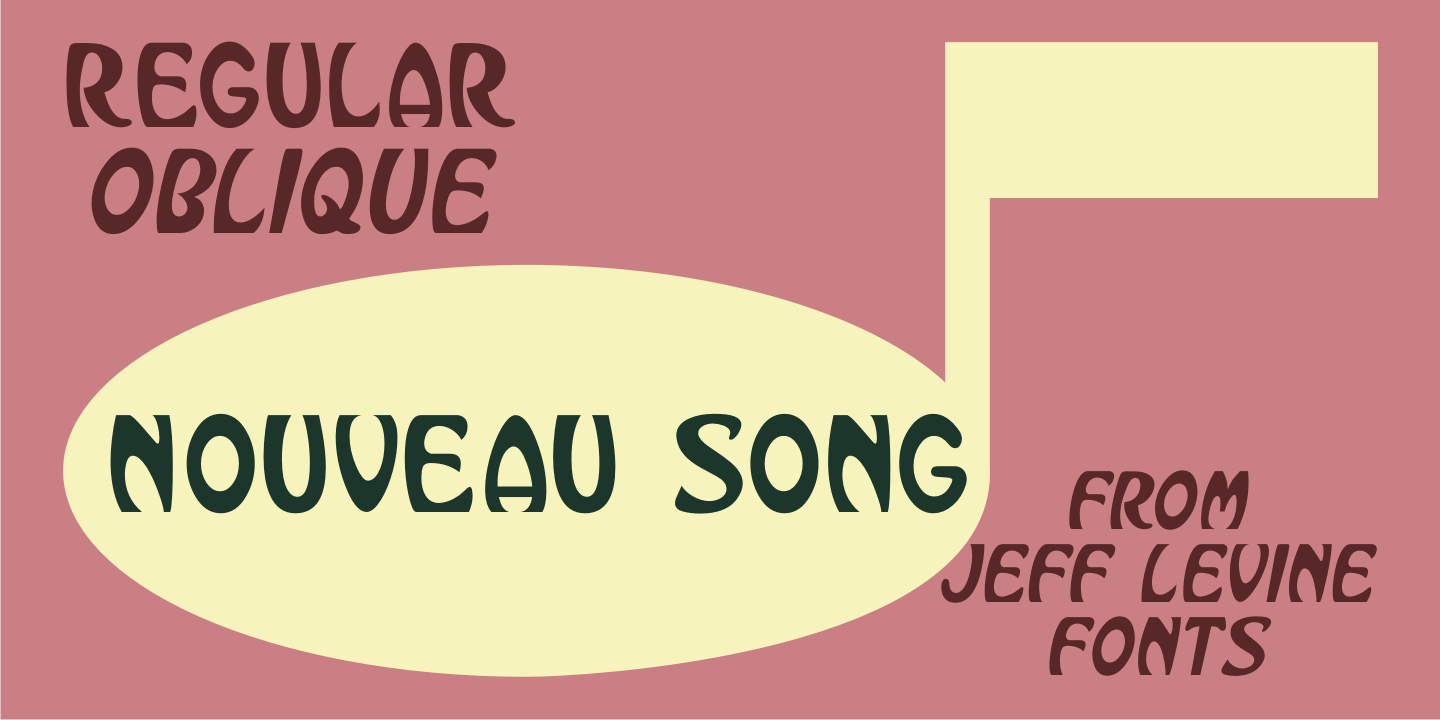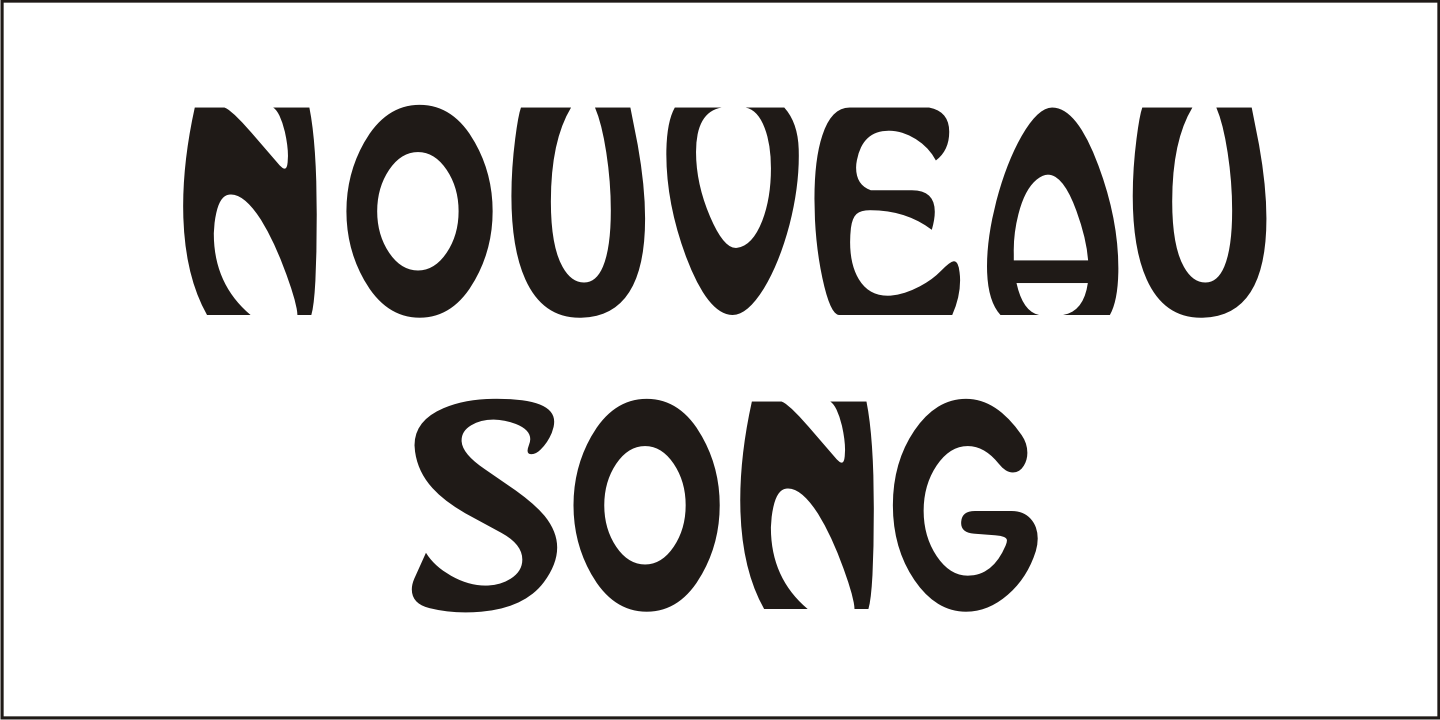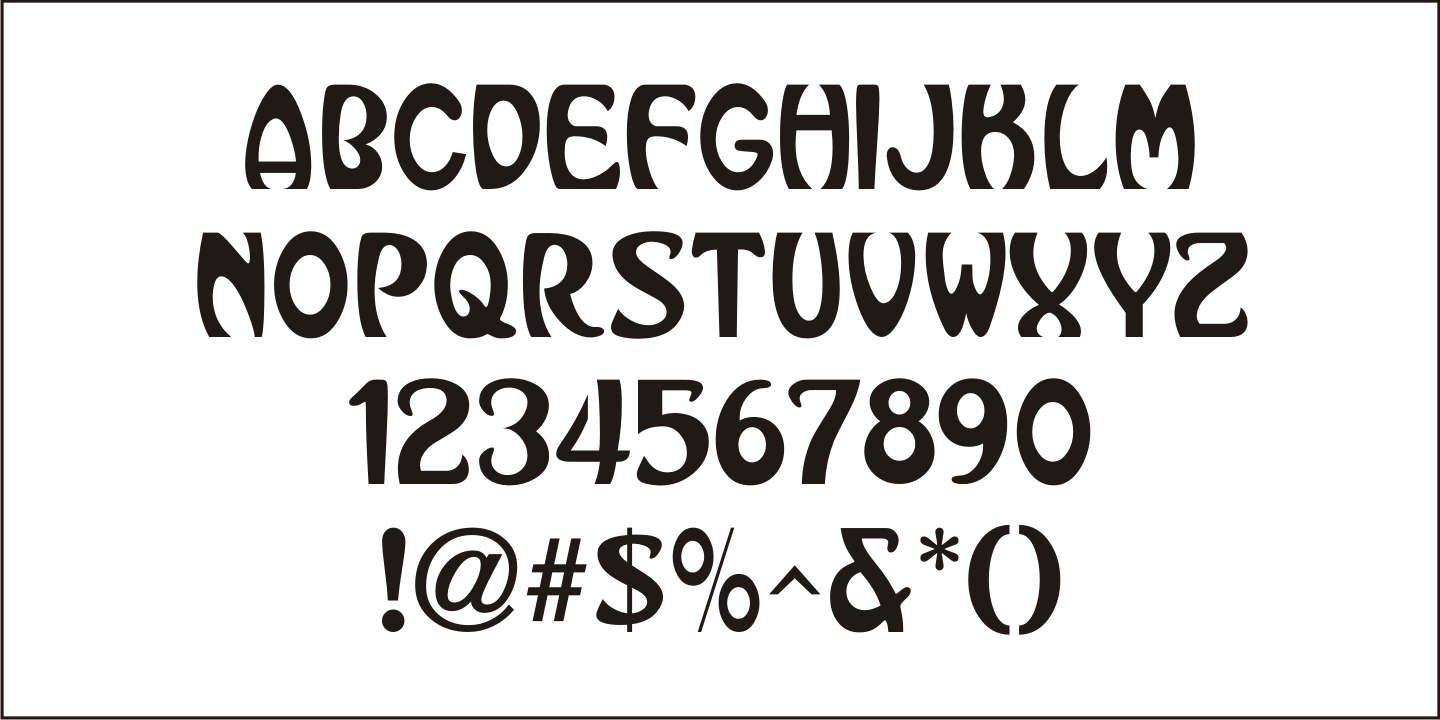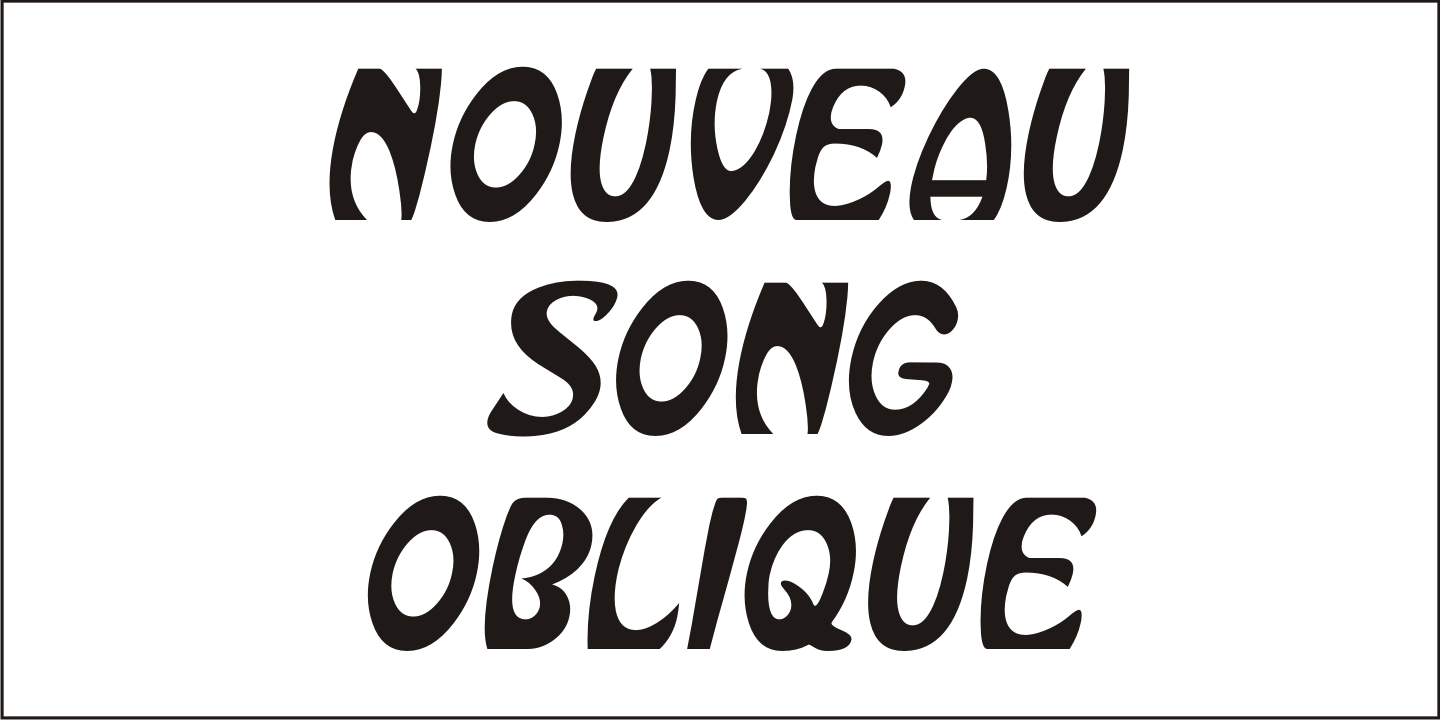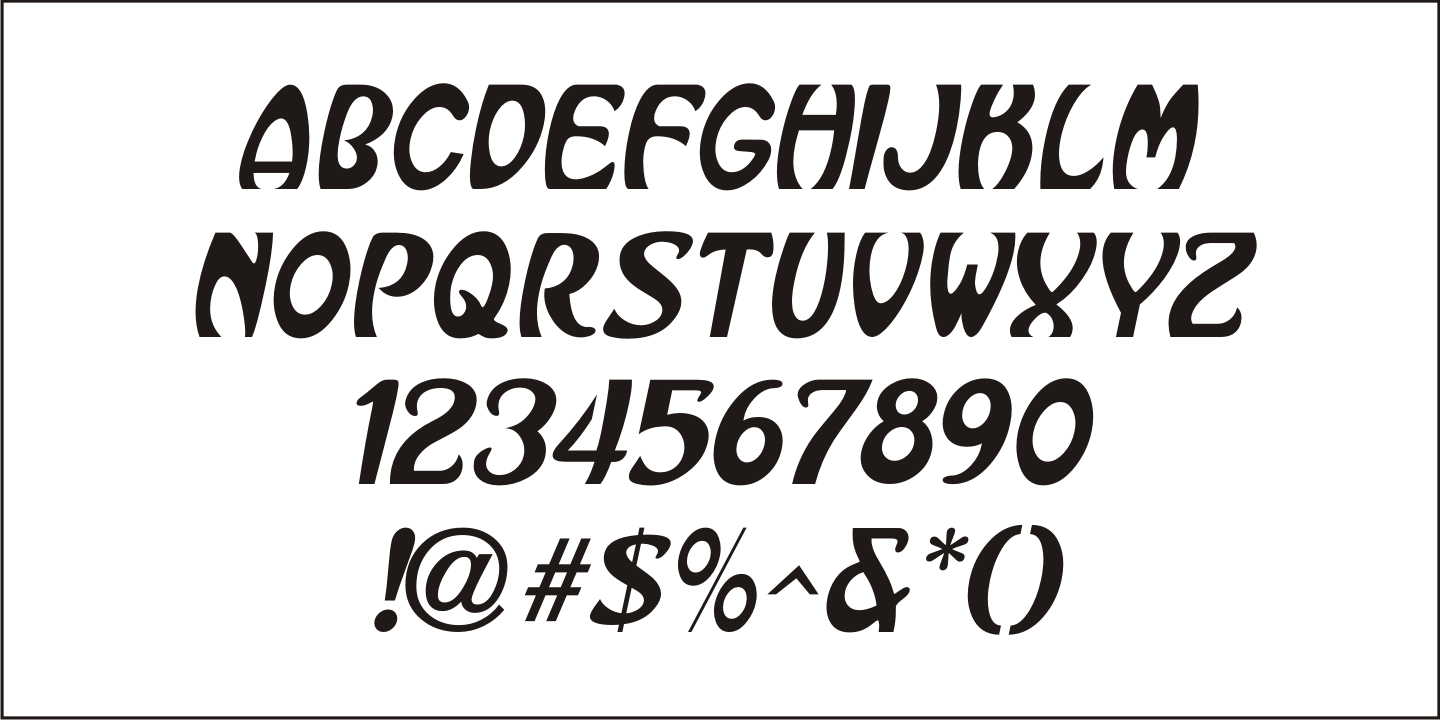
Nouveau Song
The Art Nouveau free-form, hand lettered title on the cover of the 1912 sheet music for Irving Berlin's 'Wait Until Your Daddy Comes Home” formed the basis for Nouveau Song JNL, which is available in both regular and oblique versions.
Nouveau Song JNL Regular by Jeff Levine Fonts